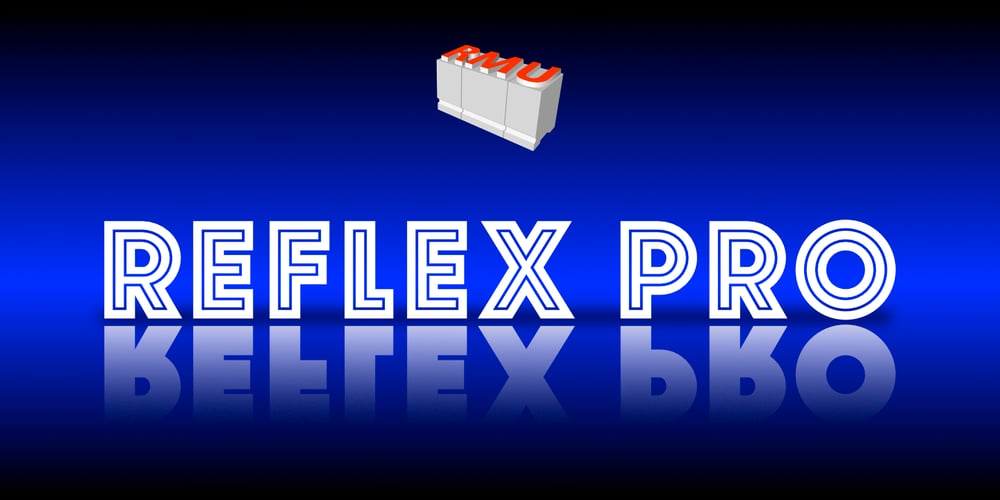
Reflex Pro Font Family was designed by Ralph M. Unger and published by RMU. Reflex Pro contains 2 styles and family package options. Reflex Pro with its two styles – Regular and Solid – is a great sans serif all-caps font family, ideal for headlines, posters and signboards. The solid style makes it easy for you to fill the letters with photographs or background patterns.